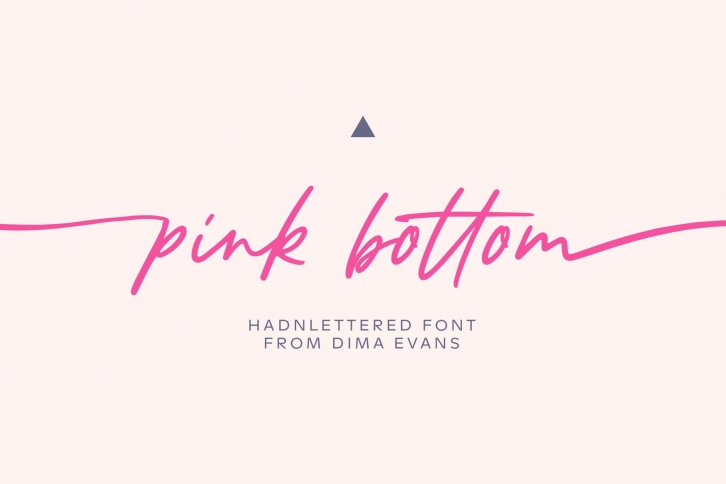
This modern calligraphy script has been attentively written, with gentle curves to produce a font thats completely distinctive and original. It contains a full set of lower & uppercase letters, a large range of punctuation, numerals, and multilingual support. Perfect for adding a elegant and unique touch to your lettering projects and branding
Also with their help, you can create a Wedding lettering or beautiful frame for your home. Or just use for your small business, book covers, stationery, marketing, magazines and more.